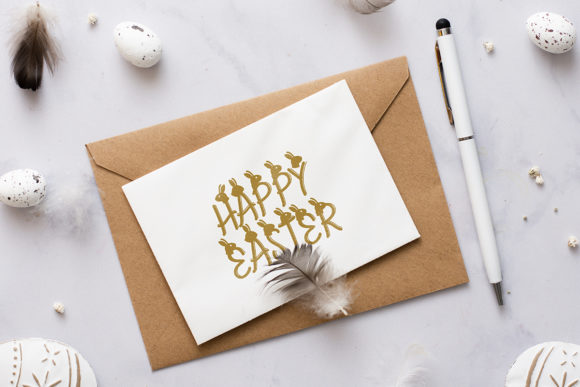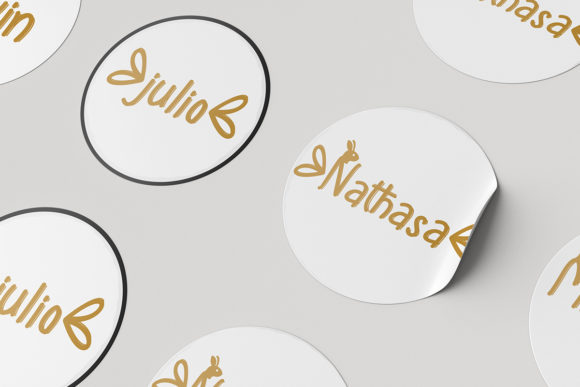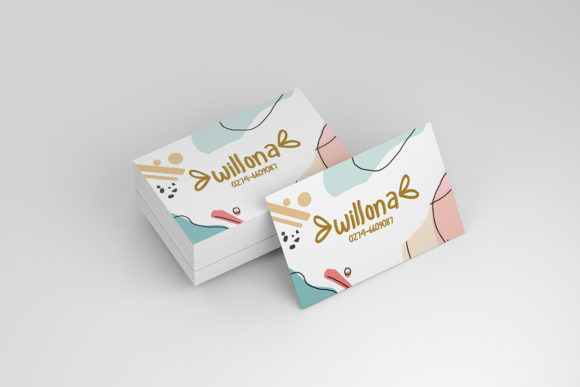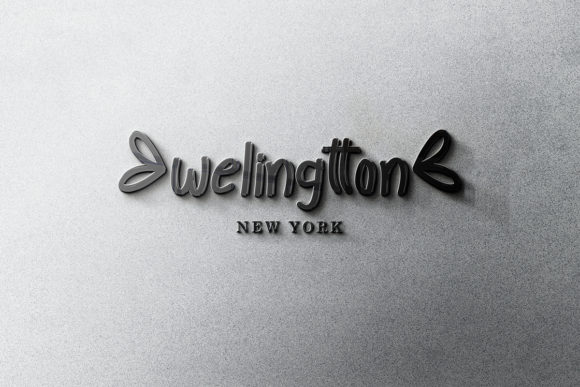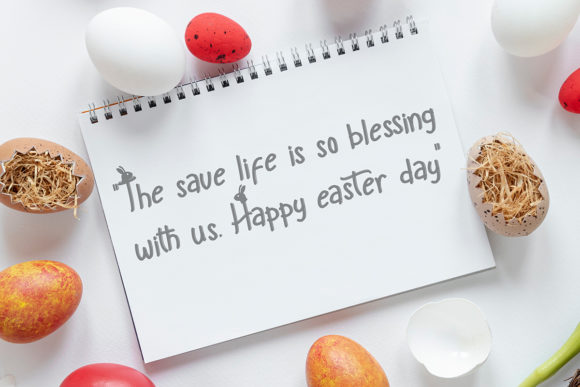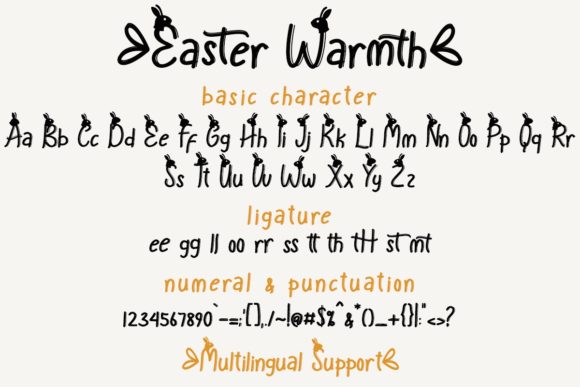
Easter Warmth Font: Elevate Your Design with a Touch of Luxury
Are you looking for a font that can add a spark of luxury to your design projects? Look no further than the Easter Warmth Font. This beautiful light display font boasts a unique feel and a stunning impact that will take your designs to the next level. In this article, we’ll dive into the features and benefits of the Easter Warmth Font and explore how it can elevate your design game.
A Beautiful Light Display Font
The Easter Warmth Font is a gorgeous light display font that is perfect for adding a touch of elegance to any design project. Its unique feel and stunning impact make it ideal for use in a variety of applications, from branding and advertising to packaging and signage. Whether you’re a designer, crafter, or DIY enthusiast, this font is sure to impress.
One of the standout features of the Easter Warmth Font is that it is PUA (Private Use Area) encoded. This means that you can access all of the amazing glyphs and ligatures with ease, giving you even more creative freedom to experiment with different design elements. With PUA encoding, you can easily access the font’s extensive character set, including swashes, alternates, and ornaments, to add an extra layer of sophistication to your designs.
Add a Luxury Spark to Your Designs
The Easter Warmth Font is designed to add a luxury spark to any design project. Its elegant and refined aesthetic makes it perfect for use in high-end branding, advertising, and packaging designs. Whether you’re looking to create a sophisticated logo, a beautiful poster, or a stunning website, this font is sure to help you achieve your design goals.
The Easter Warmth Font is a versatile design tool that is perfect for both designers and crafters. Whether you’re a professional designer looking for a new font to add to your arsenal or a crafter looking for a unique and elegant font to use in your DIY projects, this font is sure to meet your needs. Its ease of use and extensive character set make it an excellent choice for a wide range of design applications.
- Beautiful light display font: The Easter Warmth Font is a stunning light display font that adds a touch of elegance to any design project.
- Unique feel and stunning impact: This font boasts a unique feel and a stunning impact that will take your designs to the next level.
- PUA encoded: The Easter Warmth Font is PUA encoded, giving you easy access to all of the amazing glyphs and ligatures.
- Luxury spark: This font is designed to add a luxury spark to any design project, making it perfect for high-end branding, advertising, and packaging designs.
- Easy to use: The Easter Warmth Font is easy to use and comes with an extensive character set, including swashes, alternates, and ornaments.
In conclusion, the Easter Warmth Font is a beautiful and elegant font that is perfect for designers and crafters looking to add a touch of luxury to their design projects. Its unique feel, stunning impact, and extensive character set make it an excellent choice for a wide range of design applications. Whether you’re looking to create a sophisticated logo, a beautiful poster, or a stunning website, this font is sure to help you achieve your design goals.